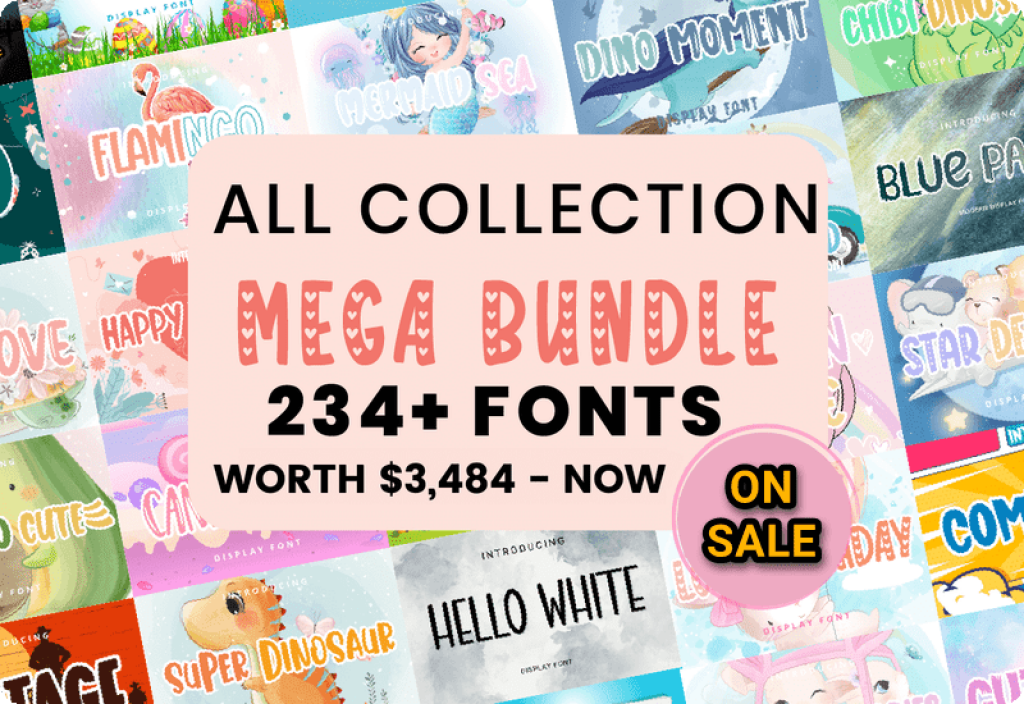
It’s that time of year again! The leaves are starting to change color, the air is getting crisper, and pumpkin spice everything is everywhere. In other words, it’s crafting season! Do you need some fonts to use for your upcoming crafting projects this season? Well, look no further!
This Mega Font Bundle is perfect for the upcoming holiday season. You can use these fonts on all sorts of things from cards and invitations to decorations and gift tags. There are 235 premium fonts made by Planetz Studio included in this pack, which means there is a font for every occasion! There are also tons of styles including brush script, serifs, sans-serifs, hand lettering scripts and many more.
- Boho
- Hello White
- Unicorn Future
- Rainbow Live
- Mermaid Sea
- Sweet Sunflower
- Farm Dream
- Happy Lemon
- Castle Rainbows Font
- Cartoon Shark
- Sublimation
- Art History Book
- Juice
- Dino Moment
- Donut Kids
- Hey Creative
- Cute Lion
- Avocado Cute
- Minimum Jump
- Sunrise Island
- Chibi Dinosaur
- Love Birthday
- Slime Horror
- Junggle Land
- Moments Kids
- Vintage
- Winter Story
- Sunrise Holidays
- Magic Old
- Sigajaya
- Quick Sketch
- Street Mountain
- Farmhouse
- Baby Twice
- Farmhouse Memories
- Creative Farm
- Cute Witch
- Magical Twins
- Cookies Mom
- Unicorn World
- Homeschool Summer
- Unicorn Nice
- Bunny Light
- Comic Day
- Beauty Story Font
- Cartoon New
- Baby Koala
- Magical Stories
- Where Farmhouse Font
- Sunflower Like
- Gnomes Panda
- Plants Draw
- Farmhouse Love
- Legion Zombie
- Fruits Garden
- Columbus Star
- The Designer
- Brush Color
- Summer California
- Best Homework
- Green Love
- Parade Ship
- Flamingo
- Nightmare Horror
- Summer Desert
- Unicorn School
- Crafty Rainbow
- Unicorn Sleeping
- Baby Penguin
- Super Holidays
- Tasty Donuts
- Tower Lucky
- Write Work
- History Vintage
- Christmas Place
- Red Paper
- Cute Paint
- Hey Blood
- White Wizart
- Candy Lover
- Music Matrix
- Summer Friendship
- White Story
- Rainbow Comic
- Black Pumpkin
- Game Space Academy
- Jack Laughs
- Beauty Valentine Day
- School Grunge
- Stay Amsterdam
- Apple Mandala
- Fresh Dream
- Hallo Lemonade
- Rainbow Drawn
- Antique Witch
- Smart Lazy
- Star Designer
- Butterfly Fly
- Rainbow You
- Wow Home
- Little Dino
- Minimalist
- Georgia Line
- Baby Hunter
- Minangrosa
- Rainbow Storm
- Tasti Watermelon
- High Handmade
- Vintage Science
- Rainy Forever
- Cactus Morning
- Fall Kingdom
- Hello Mermaid
- Wildstar Academy
- People Book
- Running Bee
- Valentine Time
- Lucy Farm
- Dino Sky
- Simple Kitten
- Happy Dream Day
- Rainbow Flowers
- Summer Birthday
- Rabbit Home
- Rain First
- Simply Purple
- New Homemade
- Only Book
- Game Comic
- Milkshake Lemon
- Pineapple Juice
- Scary Halloween
- Hello House
- Birthday Holiday
- Alliance Fox
- Where School
- Take Cute
- Hey Lemon
- Summer Boom
- Accemine
- Starry College
- Great Food
- Wave Cute
- Valentine
- Coffee Winter
- Sketch Name
- Special Street
- Old Sketch
- Take Craft
- Hey Yellow
- Kitty Creative
- Snow Winter
- Kitty Dream
- Jasmine Lovely
- Note and Notes
- Zero Island
- Falina Sweet
- Smart Forest
- Maydina
- Salmon Hamburger
- Antikuman
- Honey Mountain
- Julie Cute
- City Zoo
- Vanneria
- Merry Story
- California Now
- Hinetya
- Hinata Lover
- Dinamica Star
- Halloween Light
- Magic Lemon
- Aintya Beauty
- Dungeon Hunter
- Laidiya
- Playing City
- Gnome Miracle
- Brush Monday
- Vintage Special
- Blue Unicorn
- Tavisha
- Hello Clouds
- Handmade Cookies
- Your Family
- Takumas
- Overgear Creative
- Watercolor Cat
- Halloween Queen
- Bright Wall
- Kiki House
- Life Coming
- Funykora
- Magic Valentine
- First Alligator
- Nataworld
- Coco Empire
- Quincy Dream
- Happy Valentine
- Unique Beauty
- Eskimo Hai
- Fool Day
- Give Home
- Handmade Animation
- Super Beauty
- Hello Iceland
- Sweet Story
- Big Craft
- Hello Sunflower
- Place Book
- Factory Spring
- Quanamay
- Valentine Special
- Think Home
- Zone Sport
- Volcano Galaxy
- Halloween Designer
- My Florida
- Mart Seven`
- Pixel Wow
- Witch Hallo
- Think World
- Oregon Now
- One Fresh
- Wow Tea
- Harijadi
- Monster Realm
- Enjoy Rainbow
- Funky Sweet
- White Rainbow
- Blue Paint
- One Adventure
- Cute Auntumn
- Dear Green
- Halloween Haunted
- Sket Slow
The Mega Font Bundle has an extensive range of different typefaces, from quirky and cute to funky looking fonts. It also includes many unique styles such as hand-drawn fonts and brush scripts. With so many options in one place, it’s hard not to find something you like!